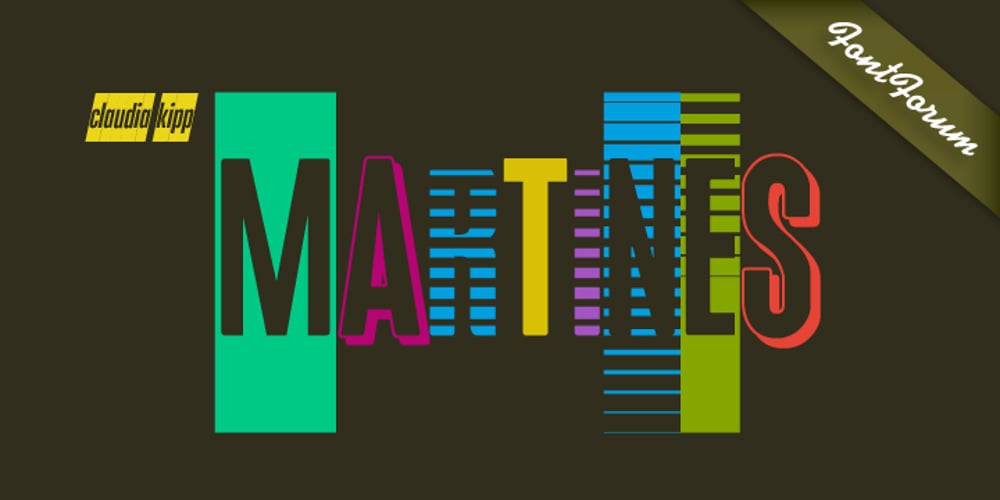
Martines Font Family was designed by Claudia Kipp and published by URW Type Foundry. Martines contains 14 styles and family package options. Martines was designed by Berlin designer Claudia Kipp for the URW++ Font Forum. It is a condensed Linear Sans Serif (Grotesk) typeface with a variety of modifications, including an outline, a negative (light), and even a striped variation, all in italic as well.